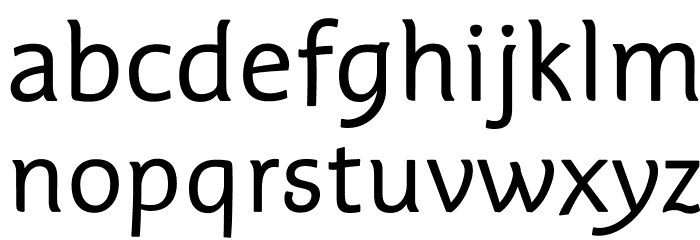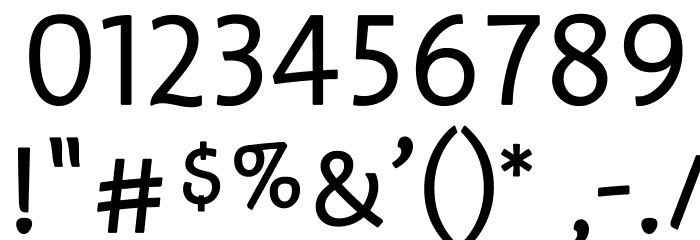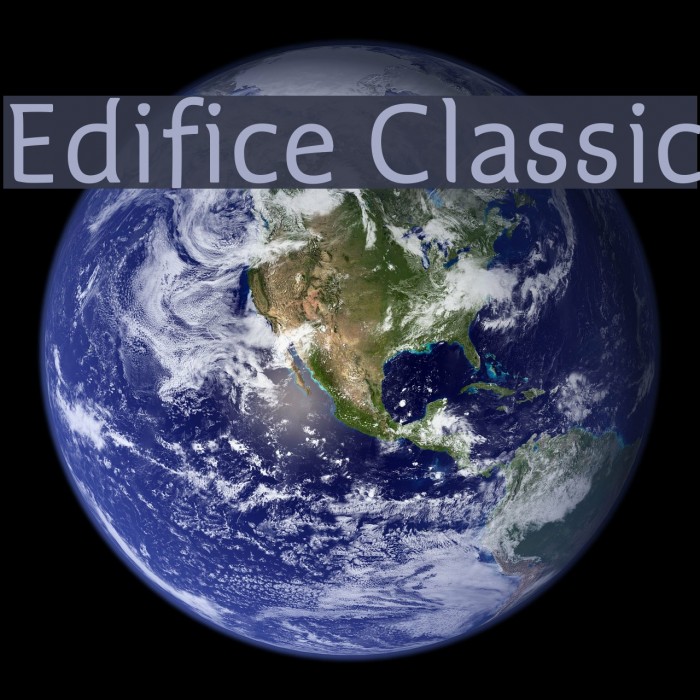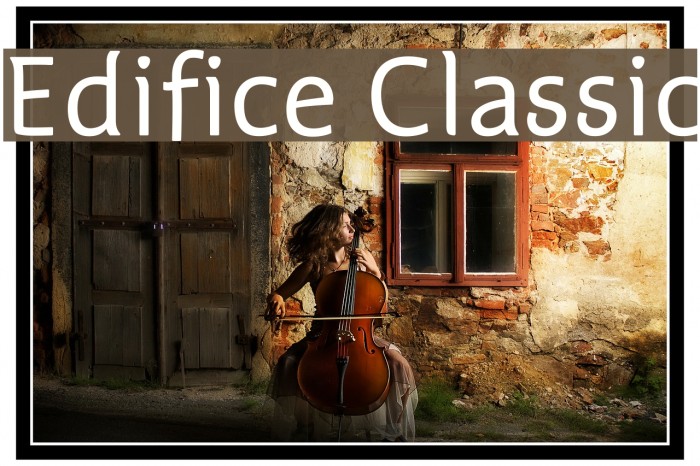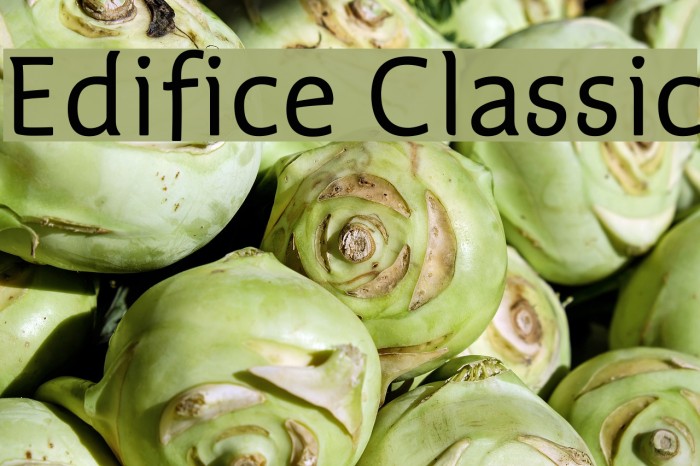
Edifice Classic Font
This font features a clean and modern sans-serif design with a slightly rounded appearance, giving it a friendly and approachable feel. The characters are well-proportioned, with consistent stroke widths that provide a harmonious and balanced look. The uppercase letters are bold and assertive, while the lowercase letters maintain a smooth and flowing style. The numerals are clear and legible, making them suitable for a variety of applications. Special characters are distinct and well-integrated, ensuring versatility in design projects. Overall, this font is ideal for creating a professional and contemporary aesthetic.
A modern, rounded sans-serif font with a clean and approachable style.
- Proposed Projects: Ideal for branding, web design, advertising, and editorial layouts.
- Category: Sans-Serif
- Use Case: Headlines, Body text, Logos